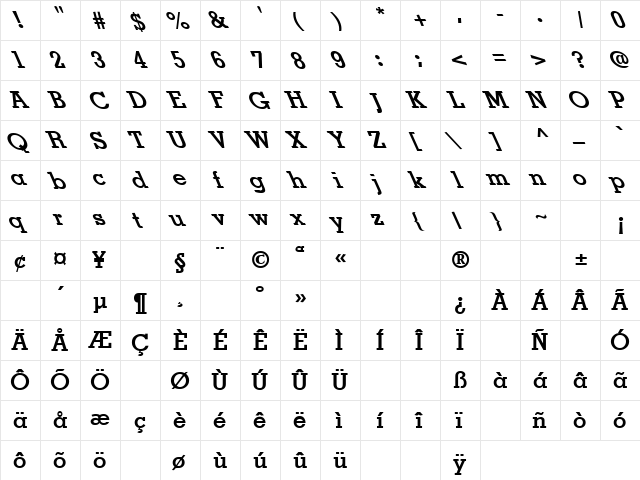
Treaties 10 Regular
Design Context for Treaties 10 Typeface
Treaties 10 offers clean, dependable letterforms without strong stylistic allegiance, making it a practical choice for designers who need flexibility.